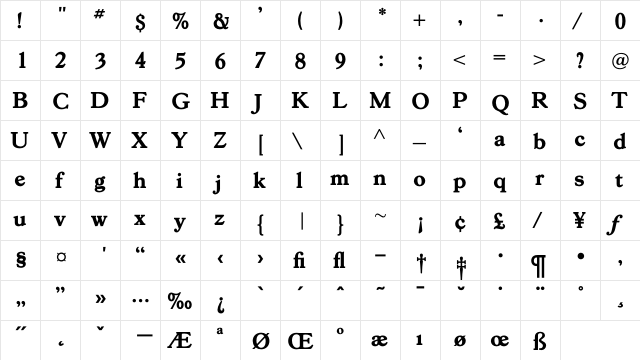
GoudY38ExtraBold Regular
Design Context for GoudY38ExtraBold Typeface
GoudY38ExtraBold is a composed and adaptable typeface that performs quietly and consistently across a wide range of design contexts. The heavy weight commands attention and anchors typographic hierarchies.